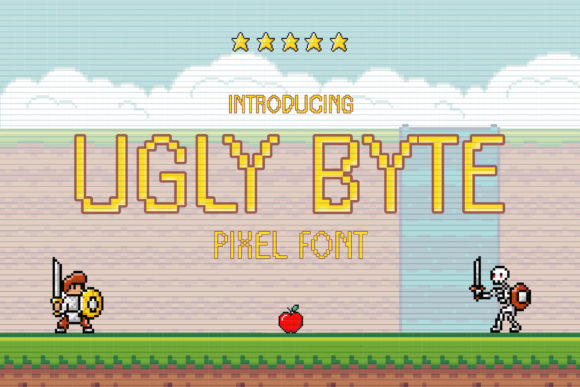
Dive into a world of retro charm and digital charisma with Ugly Byte, the pixel display font that ignites creativity and brings your designs to life. This unique offering from TypeFactory is a visual delight, capturing the essence of nostalgia and innovation in equal measure.
Step into the realm of vintage gaming and let your imagination run wild. Ugly Byte's distinct pixelated aesthetic evokes memories of classic arcade games, adding a touch of playful charm to your projects. Whether you're crafting immersive mobile apps, designing captivating video games, or embarking on retro-inspired design endeavors, Ugly Byte is your perfect companion.
Beyond its gaming prowess, Ugly Byte shines in a myriad of creative expressions. Its bold, pixelated characters bring a touch of edginess and intrigue to logos, posters, flyers, and social media graphics. Unleash your creativity and let Ugly Byte take center stage, transforming your designs into eye-catching masterpieces.
With Ugly Byte at your fingertips, you'll discover endless possibilities to captivate and engage your audience. Dive into the world of pixel art and let your imagination soar, creating designs that resonate with a touch of nostalgia while embracing the thrill of the future. Embrace the power of Ugly Byte and unlock the full potential of your creative vision today!